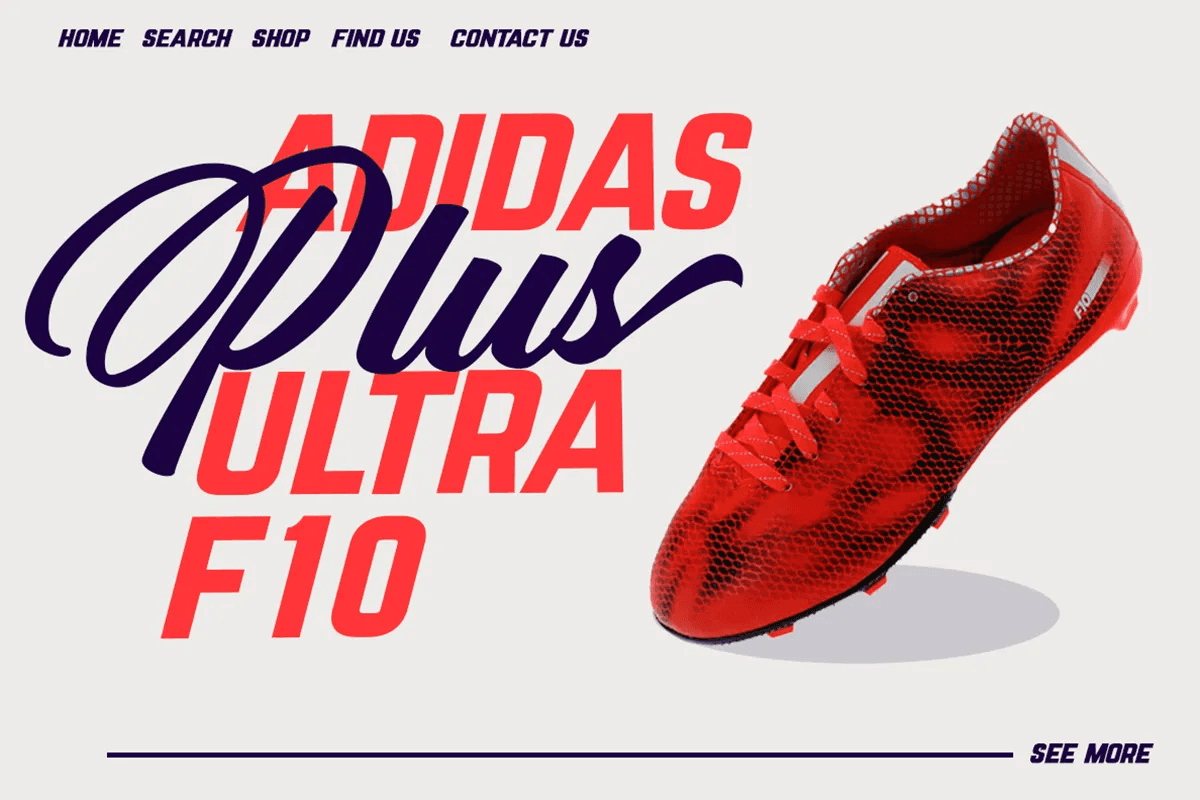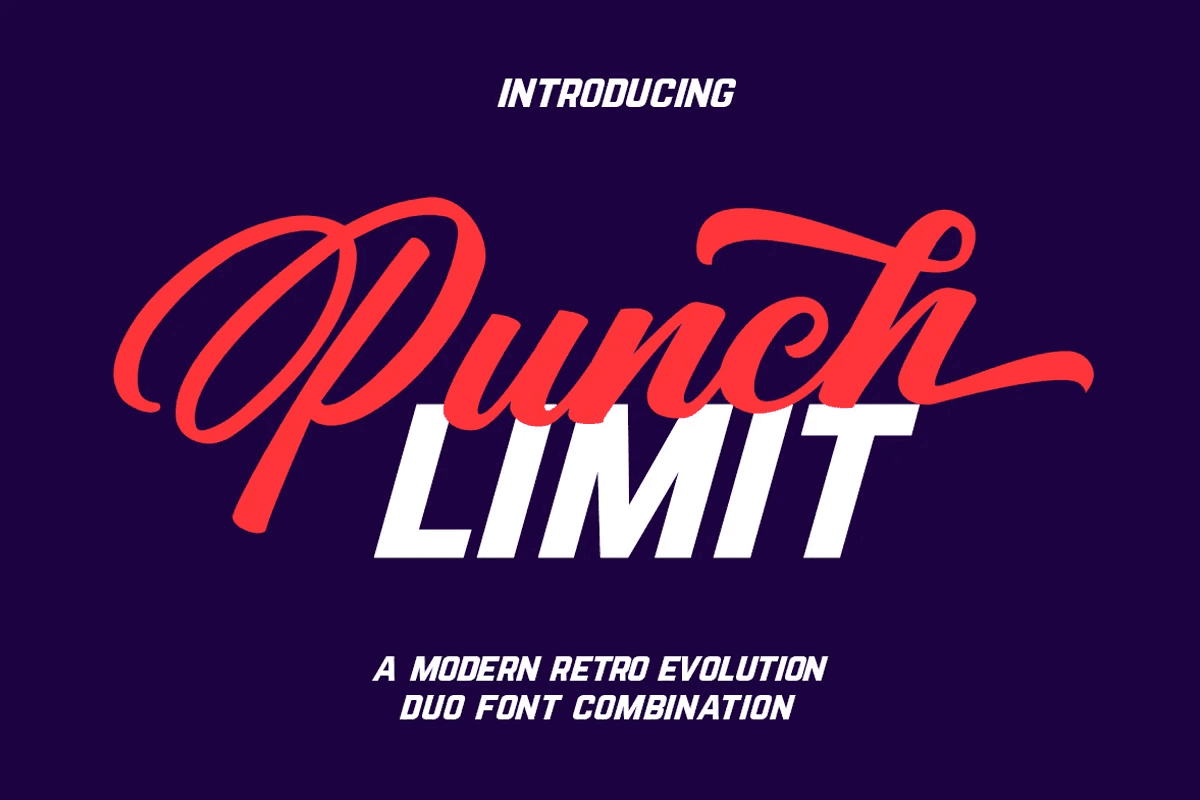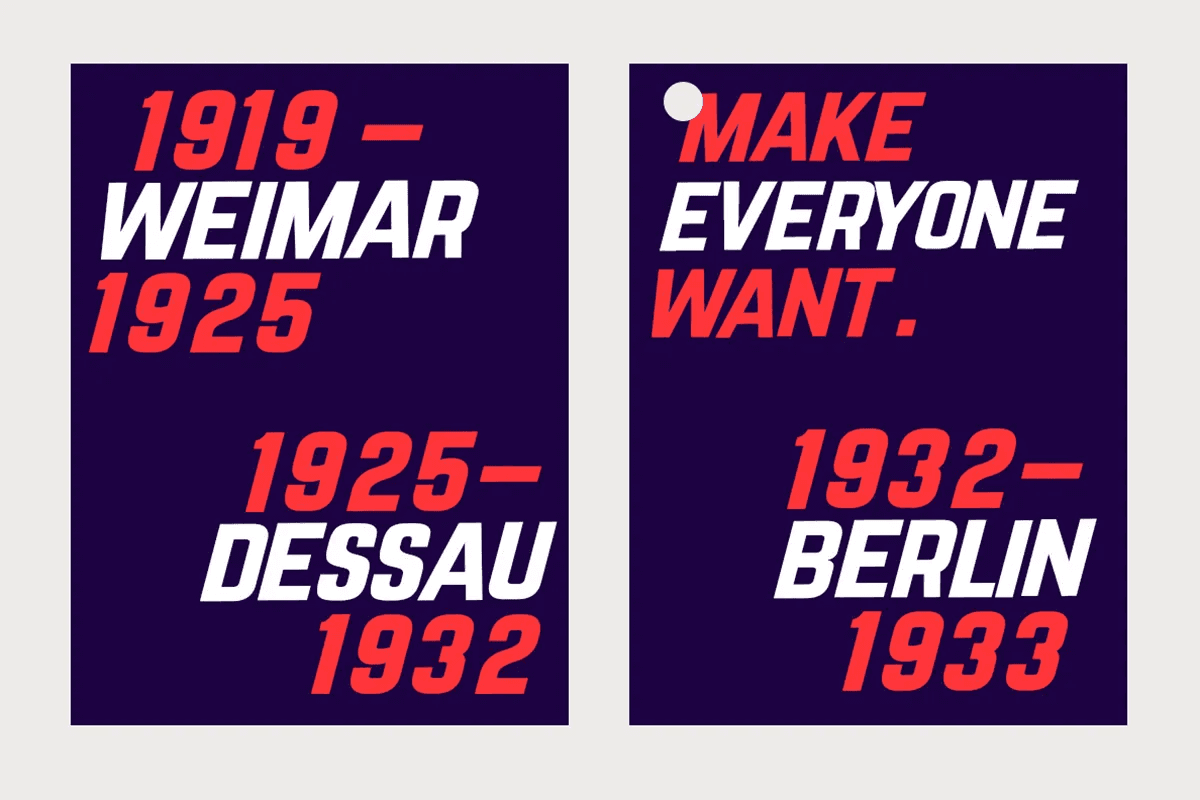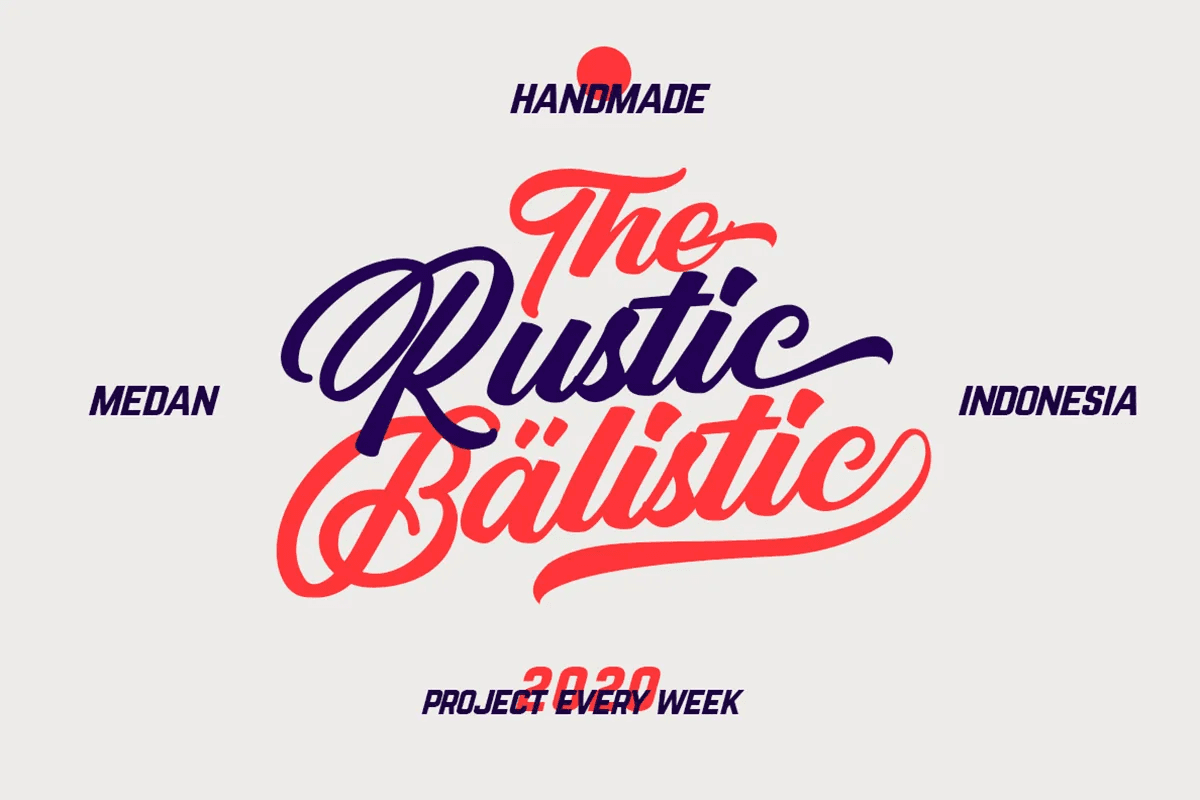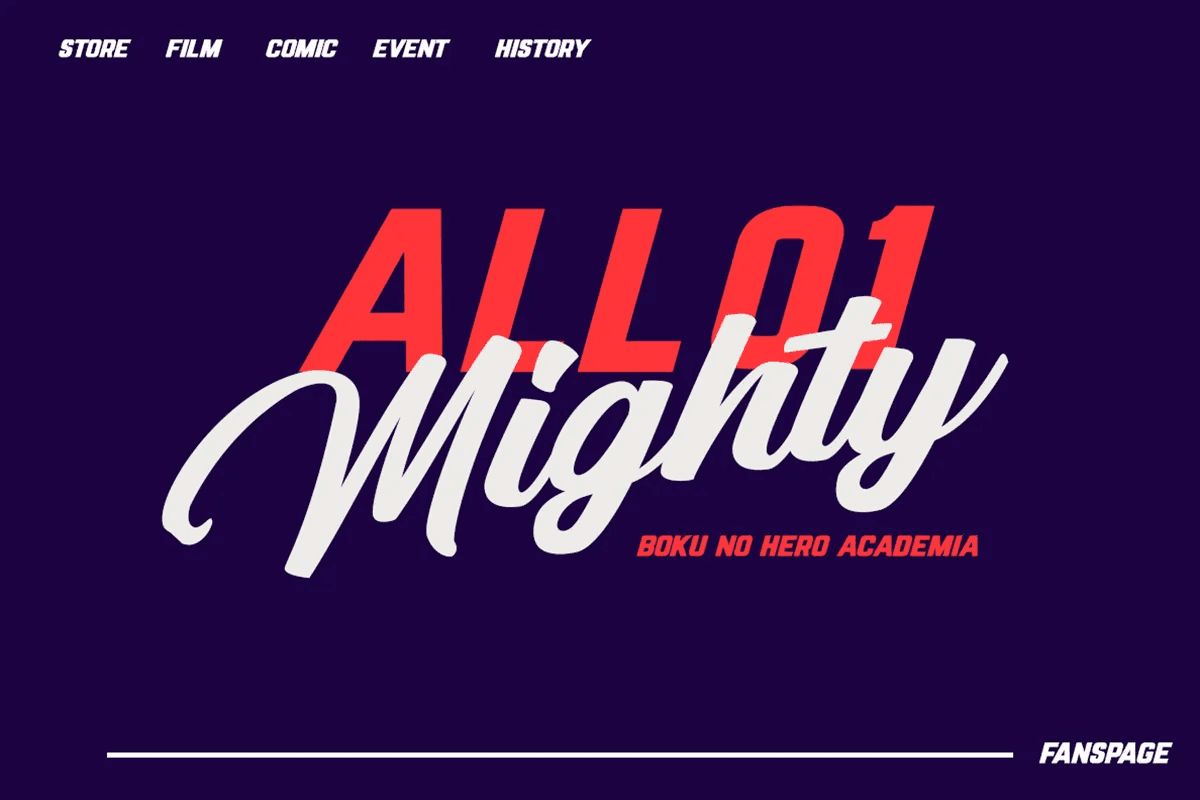
Free Punch Limit Font Combination is a dynamic duo font that brings together a gorgeous and elegant typeface. An oblique sans serif font perfectly complement each other. It will look especially great on industries such as gaming, sport, designs, arts, and much more. This flexible script typeface includes many alternatives ranging from different ss01-ss15 to each uppercase letter. It’s fun to use because every word can be changed to your needs and combined with oblique sans serif, it will look retro and classic. However, this free font is coming with a 100% free license, but you only get a style. If you want to get more, make a purchase first.